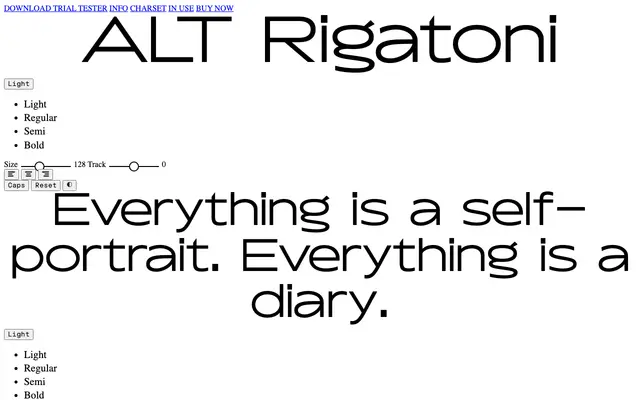
ALT Rigatoni
A wide extended grotesque in four weights that pairs a stark brutalist uppercase with a looser, more approachable lowercase.
Designed for posters and web use, the face carries 468 glyphs across Light, Regular, Semibold and Bold, with full Latin-A coverage and multilingual support. An alternate set of thin symbols and punctuation offsets the heavy weight of the main characters, adding visual contrast within a single setting. Stylistic alternates, standard and discretionary ligatures, fractions and a full arrow set round out the feature list.
A wide, extended grotesque with brutalist uppercase character and a looser, friendlier lowercase, placing it firmly in the grotesque sans tradition with display-oriented proportions.